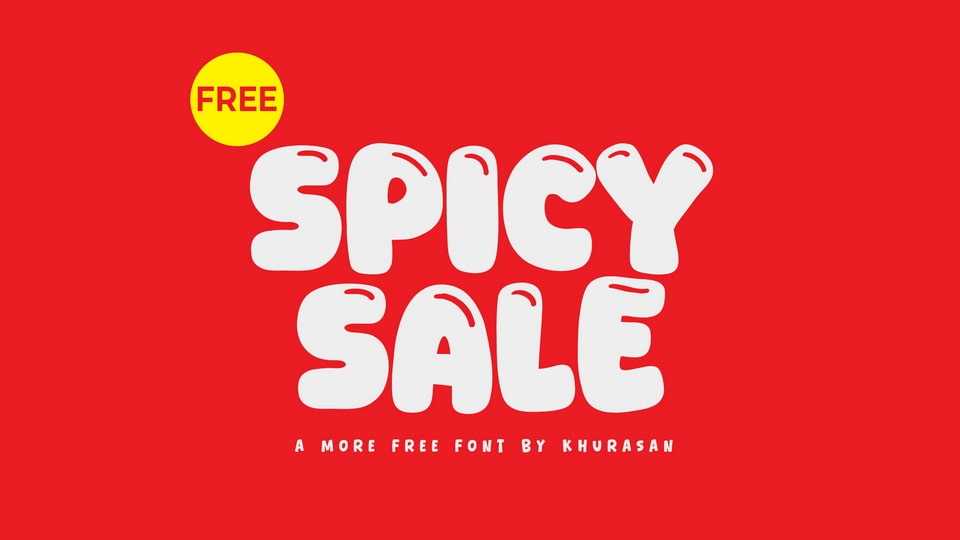
Download Spicy Sale font, a bold and bubbly display typeface that bursts with flavor and personality. Its rounded, inflated letterforms and smooth edges make it irresistibly fun and energetic.